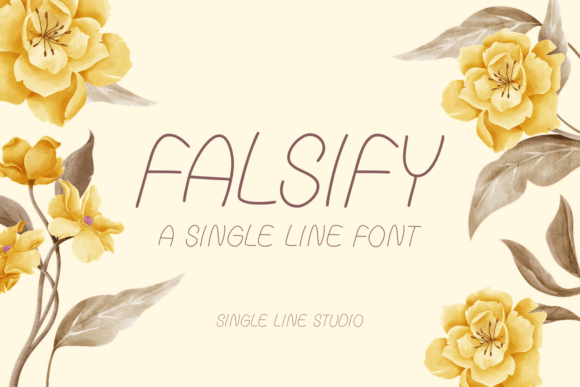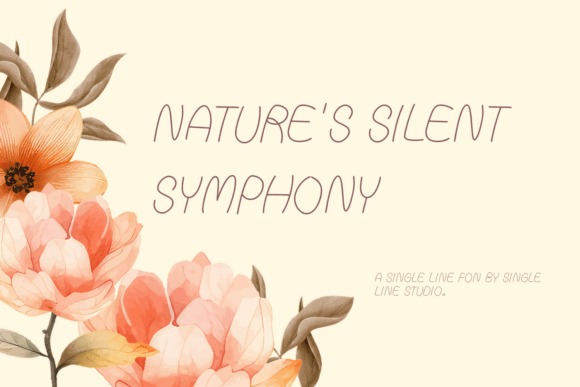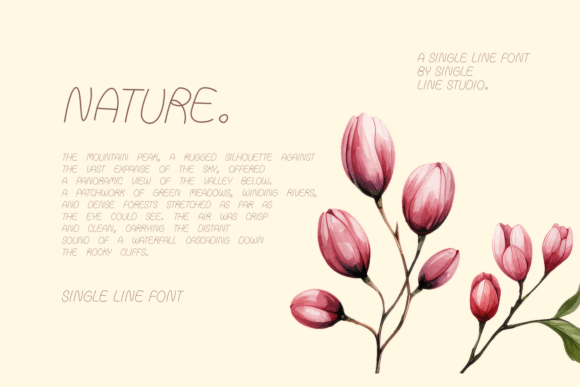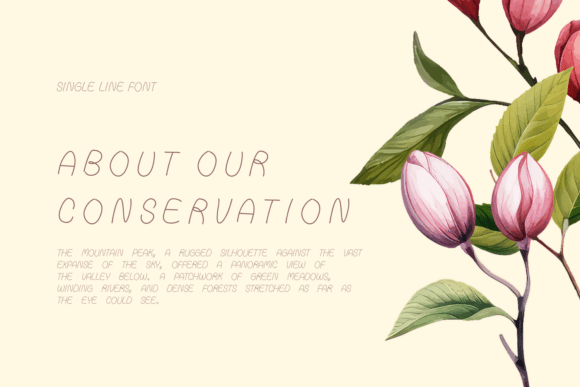
Falsify Font: A Minimalist & Modern Single Line Font for Cricut & DIY
About the Falsify Font
Elevate your designs with Falsify Font, a font that combines sophistication with readability. Falsify Single Line, a font that embodies simplicity and playfulness in a single stroke. This font is designed for those who appreciate clean lines and a touch of whimsy. With its minimalist single-line design, Falsify Single Line offers a unique and modern aesthetic, perfect for a variety of creative projects.
Falsify Single Line’s playful yet clean aesthetic makes it ideal for headlines, short-form text in logos, and branding elements where a touch of whimsy is desired. It works exceptionally well on posters, social media graphics, and packaging for products targeting a younger, modern audience. Avoid using it for body text or large blocks of text; its single-line construction can hinder readability at smaller sizes.
Its minimalist nature pairs well with bolder sans-serif fonts like Montserrat or geometric sans-serifs such as Futura for a strong contrast. For a softer feel, consider pairing it with a delicate serif like Lato or a script font with a similar level of simplicity, avoiding overly ornate options.
The overall personality of Falsify Single Line is youthful and modern, conveying a sense of approachability and fun without sacrificing clean design principles. It is best suited for brands and projects that seek a balance between playful energy and sophisticated simplicity.
Falsify Font Usage Examples
Falsify Font Example